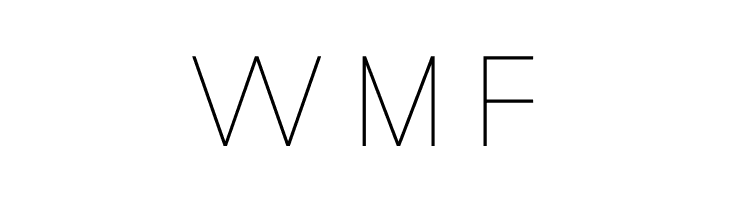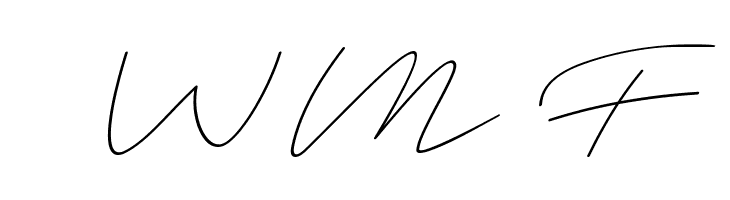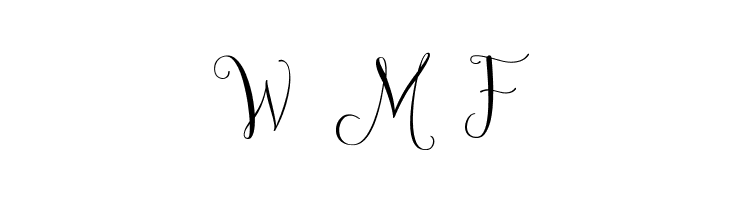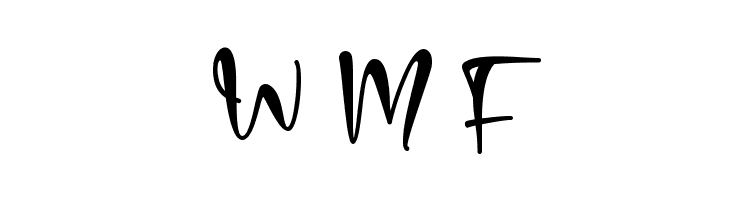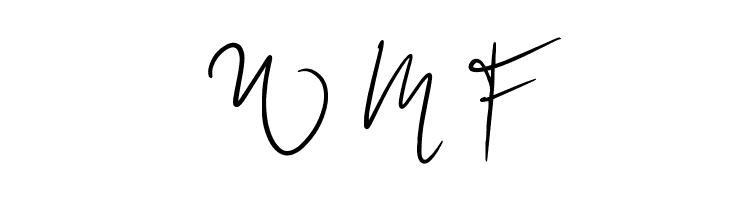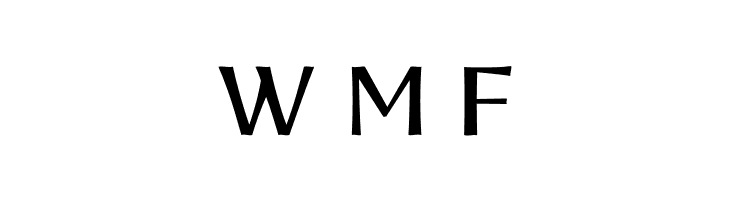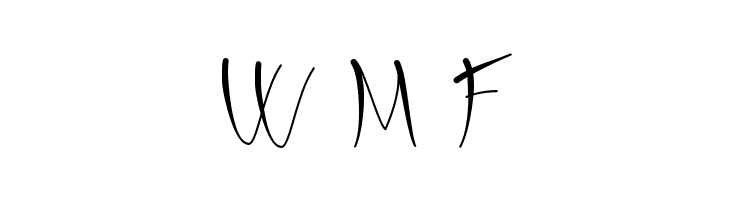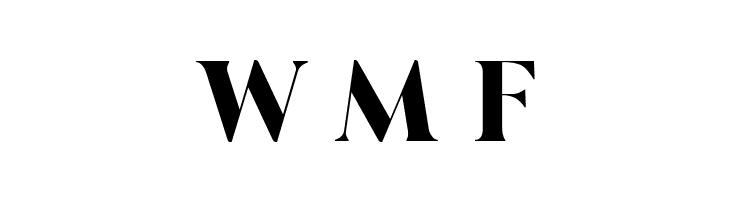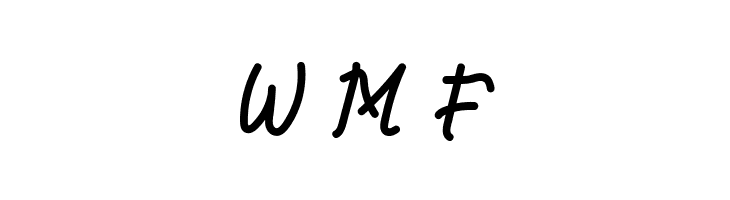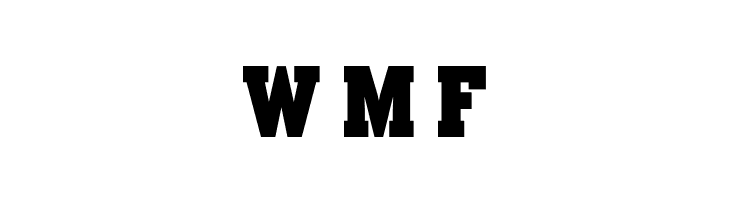
A modern, light sans-serif font with clean lines and balanced proportions.
An elegant, flowing script font with a natural handwriting style.
An elegant script font with flowing, ornate characters and decorative flourishes.
A lively and expressive handwritten font with fluid, dynamic strokes.
A flowing, elegant script font with a natural handwritten style.
A bold, dynamic serif font with angular serifs and a modern twist.
A playful and whimsical script font with flowing, handwritten characteristics.
A bold, high-contrast serif font with elegant and sophisticated styling.
A lively script font with fluid, connected letterforms and a playful elegance.
A bold, impactful slab serif font with strong, thick strokes and prominent serifs.